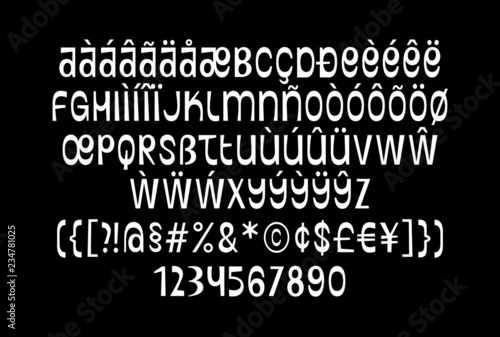
Bouncing vibrant and dynamic basic english alphabet, bohemian font, contrast latin typeface with numerals, symbols, great for prints, apparel, headlines, music albums, advertisement, cool and modern